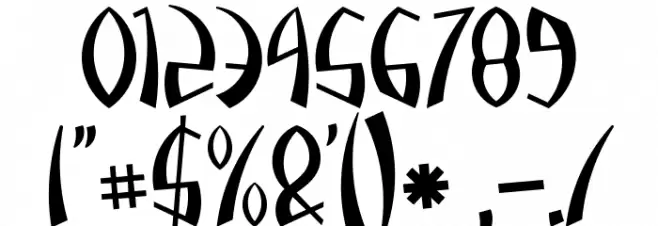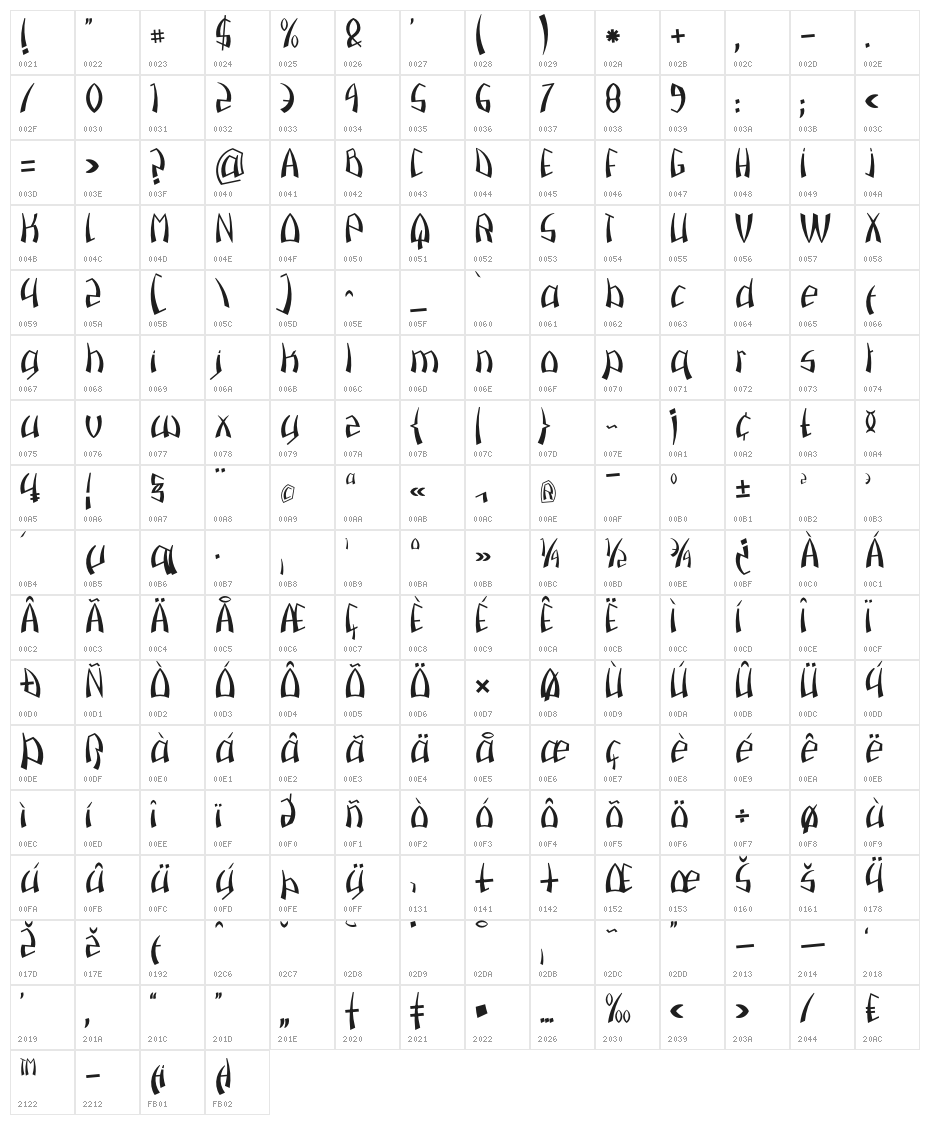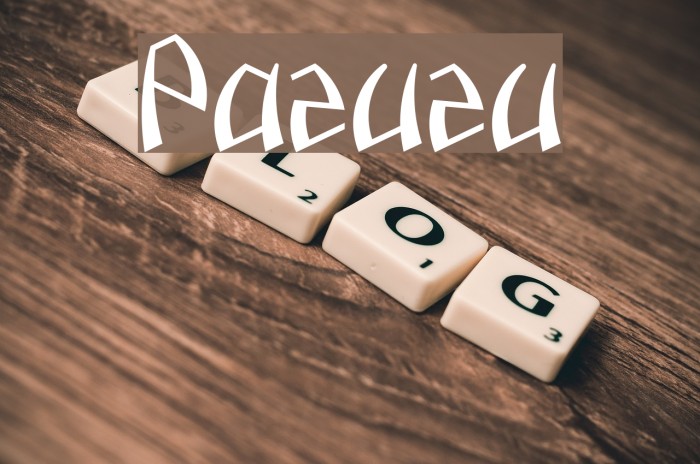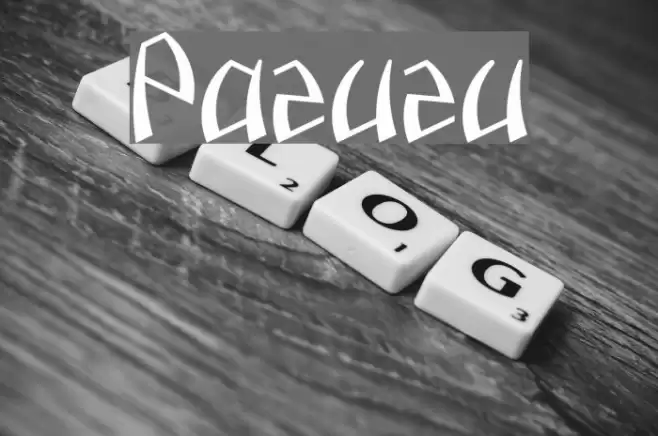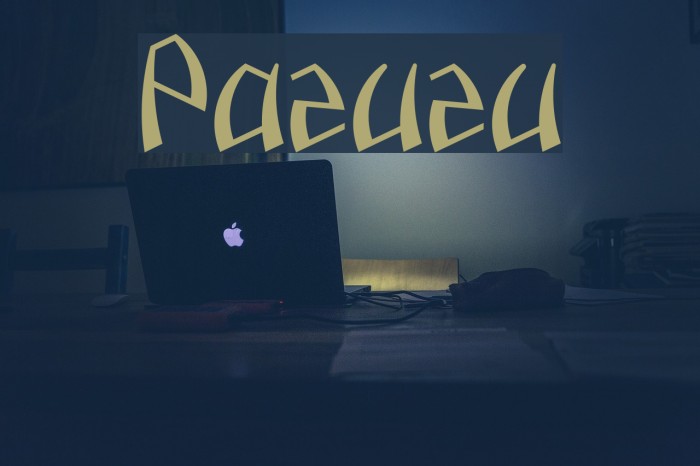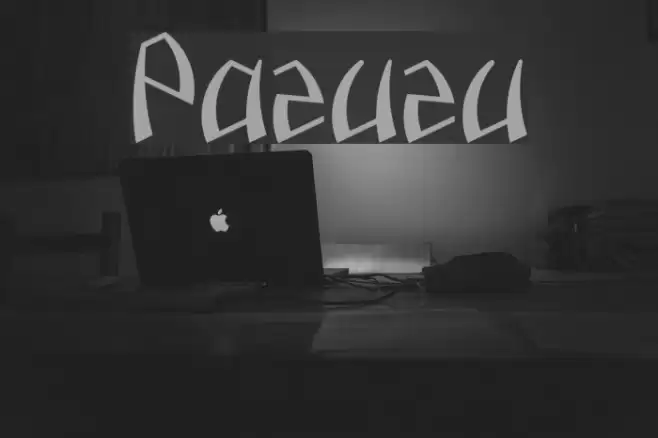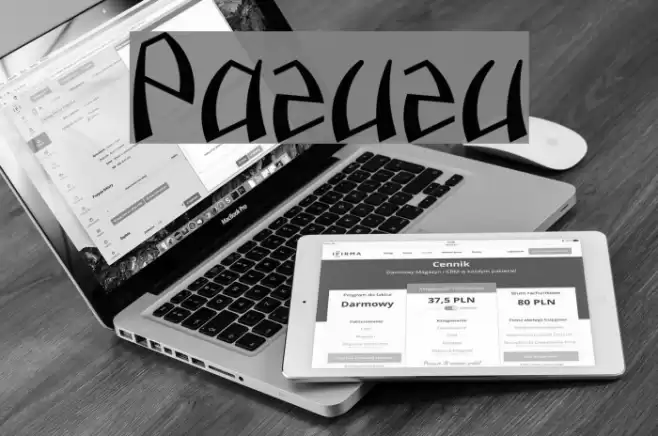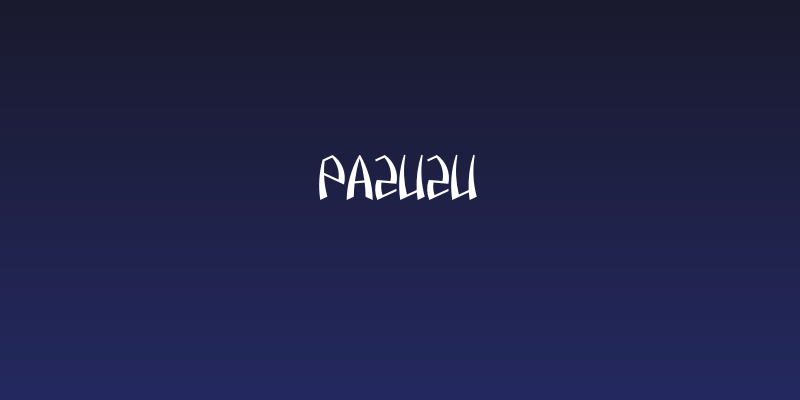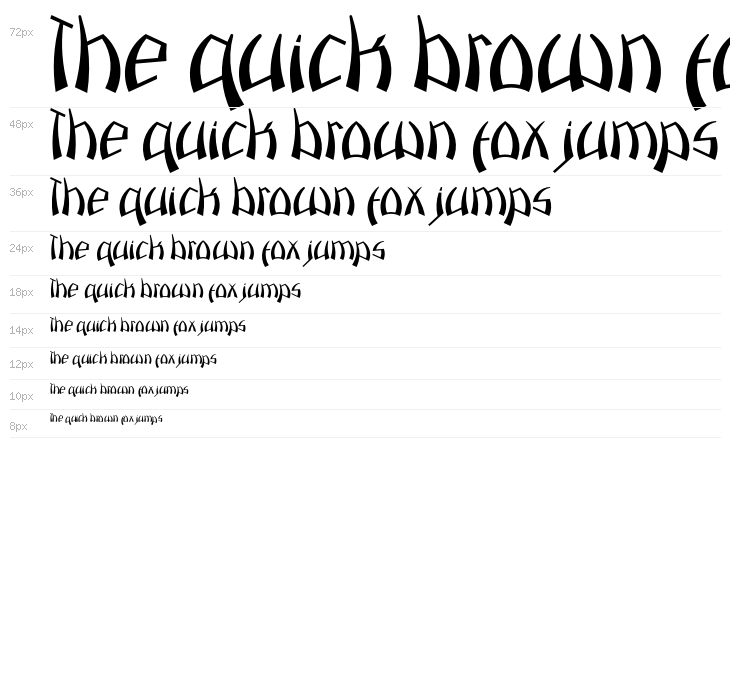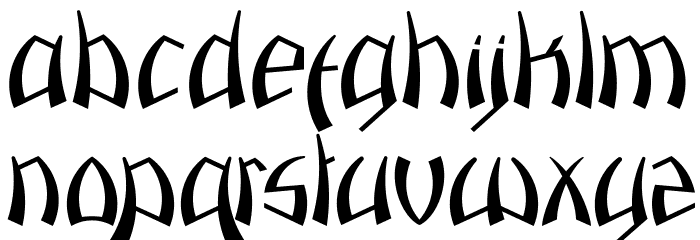
Pazuzu Font
Pazuzu Description
This font features a bold and dynamic style with a strong presence. The characters are sharply angled and exhibit a unique, almost tribal aesthetic. The uppercase letters are tall and imposing, while the lowercase letters maintain a consistent flow with a slightly more subdued height. Numbers and special characters follow the same bold design, ensuring uniformity across all elements. The strokes are thick and consistent, providing a sense of strength and stability. This font is ideal for projects that require a bold statement or a touch of the exotic.
| Proposed Projects | Ideal for posters, album covers, branding for edgy or alternative products, and any project needing a bold, eye-catching typeface. |